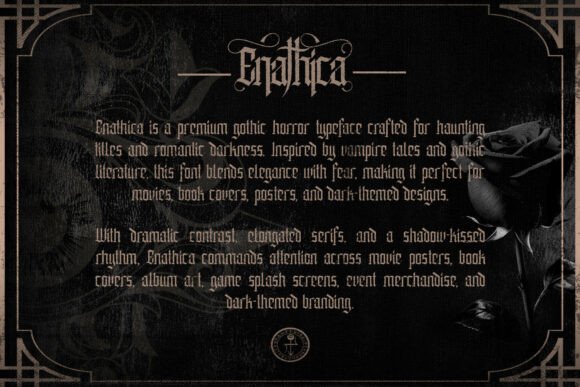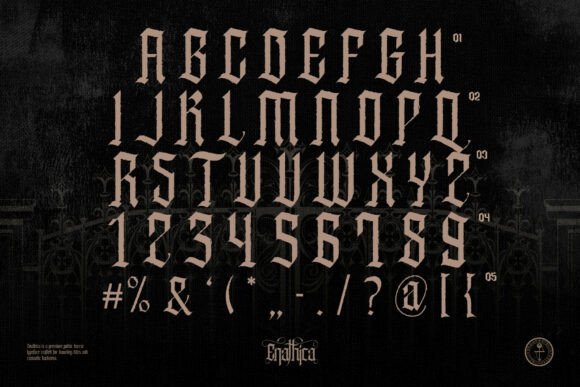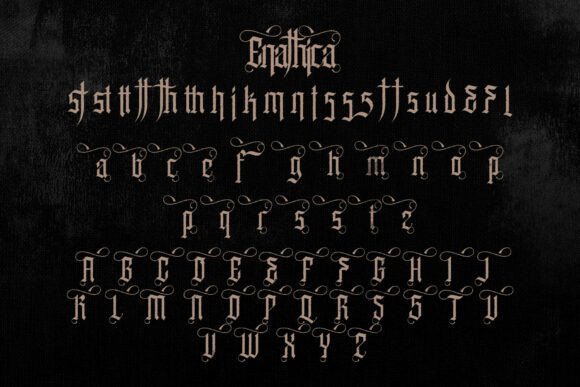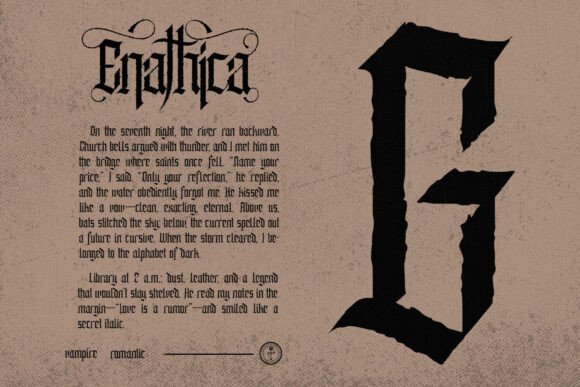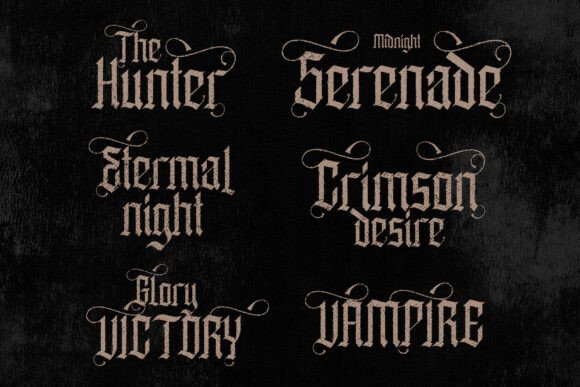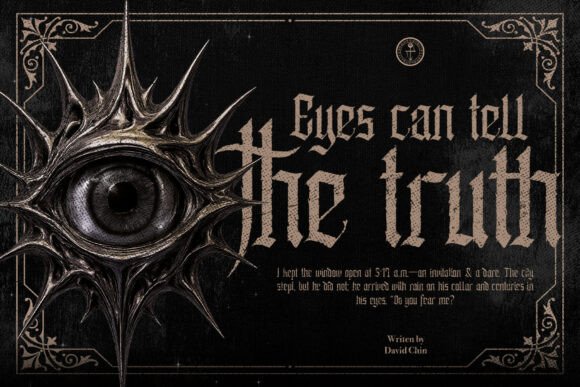
Unleash the Darkness: Introducing Enathica Font, the Ultimate Gothic Horror Typeface
Are you a designer or craft looking for a font that embodies the essence of vampire tales and romantic darkness? Look no further than Enathica Font, a premium gothic horror typeface that is sure to add a touch of mystique and timeless decay to any dark creative project. In this article, we’ll dive into the features and benefits of Enathica Font, and explore how it can elevate your designs to new heights.
The Inspiration Behind Enathica Font
Enathica Font is designed to evoke the eerie elegance and sharp, ornamental strokes of traditional gothic horror typography. With its bold, dramatic flair, this font is perfect for designers who want to create a sense of foreboding and mystery in their work. Whether you’re designing a horror book cover, a gothic-inspired brand identity, or a darkwave music visual, Enathica Font is the perfect choice.
Key Features of Enathica Font
So, what sets Enathica Font apart from other typefaces? Here are just a few of its key features:
- Uppercase, Lowercase, Numbers, and Punctuation: Enathica Font includes a full set of uppercase and lowercase letters, numbers, and punctuation marks, giving you everything you need to create professional-looking text.
- Ligatures and Alternate Swashes: Add an extra touch of elegance to your designs with Enathica Font’s ligatures and alternate swashes. These ornamental flourishes can be used to create a sense of movement and flow in your text.
- Multilingual Support: Enathica Font supports multiple languages, making it a great choice for designers who work with international clients or want to create designs that appeal to a global audience.
- Stylistic Alternates: With Enathica Font, you get a range of stylistic alternates that allow you to customize the look of your text. Whether you want to create a bold, dramatic effect or a more subtle, elegant look, this font has got you covered.
Use Cases for Enathica Font
So, what can you use Enathica Font for? The possibilities are endless, but here are a few ideas to get you started:
- Horror Book Covers: Create a spine-tingling effect with Enathica Font, perfect for horror book covers that need to grab attention.
- Gothic Branding: Add a touch of dark elegance to your brand identity with Enathica Font, ideal for gothic-inspired businesses or products.
- Occult-Themed Posters: Create a sense of mystery and intrigue with Enathica Font, perfect for occult-themed posters or flyers.
- Darkwave Music Visuals: Add a touch of drama and flair to your darkwave music visuals with Enathica Font, ideal for creating a bold, eye-catching effect.
- Haunted Attractions: Create a spooky atmosphere with Enathica Font, perfect for haunted attractions or Halloween-themed events.
- Fantasy Titles: Add a touch of magic and mystery to your fantasy titles with Enathica Font, ideal for creating a sense of wonder and enchantment.
- Vampire-Inspired Merchandise: Create a bold, dramatic effect with Enathica Font, perfect for vampire-inspired merchandise such as t-shirts, posters, or accessories.
In conclusion, Enathica Font is a premium gothic horror typeface that is sure to add a touch of mystique and timeless decay to any dark creative project. With its sharp, ornamental strokes and eerie elegance, this font is perfect for designers who want to create a sense of foreboding and mystery in their work. Whether you’re designing a horror book cover, a gothic-inspired brand identity, or a darkwave music visual, Enathica Font is the perfect choice. So why wait? Download Enathica Font today and unleash the darkness in your designs!